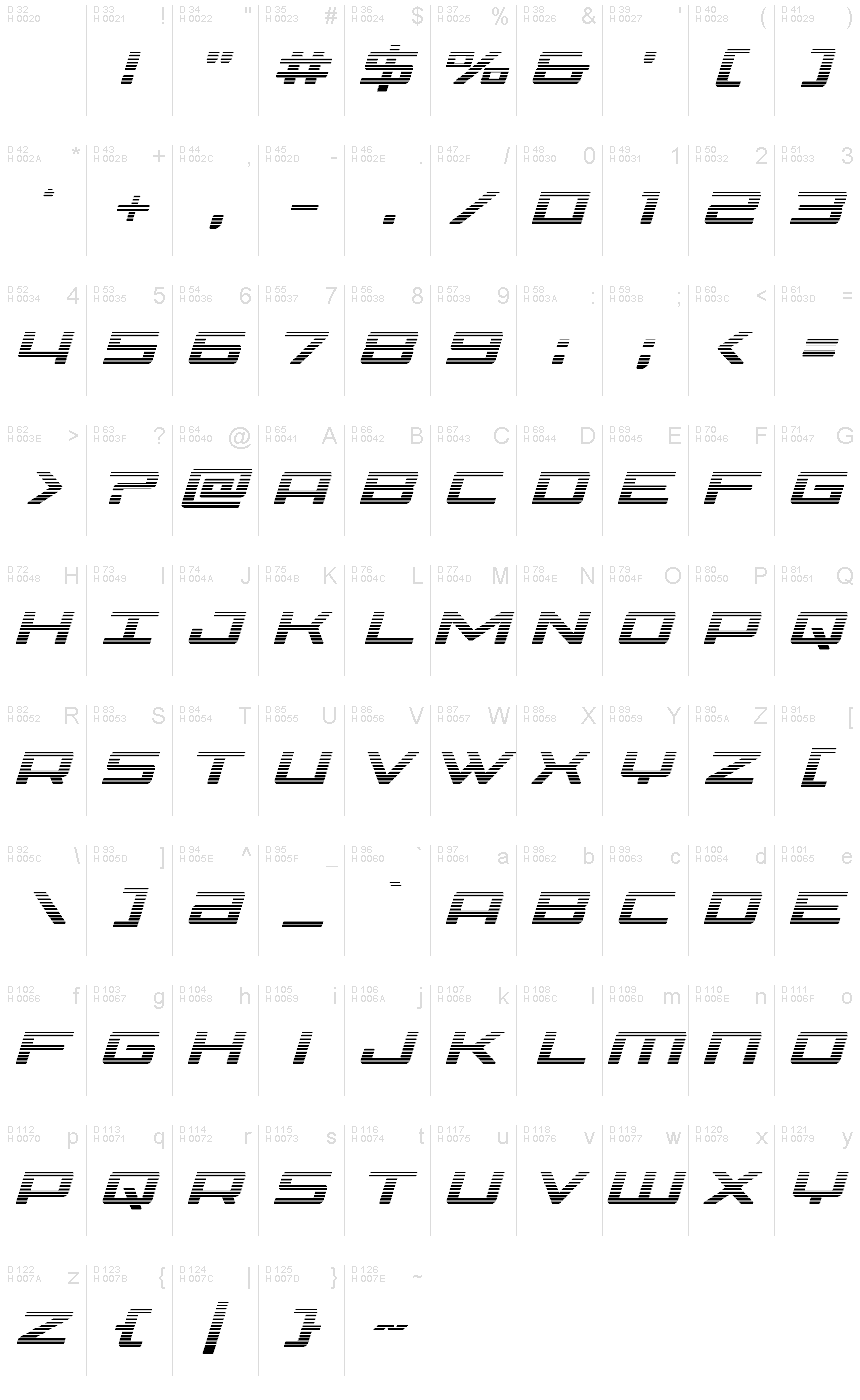
Phoenicia Gradient Italic is a bold, futuristic display font that exudes a strong techno aesthetic. Designed by Daniel Zadorozny, this expanded font family features a distinctive gradient effect that adds depth and vibrancy to its letterforms. The slanted italic styling further enhances the dynamic, energetic feel, making Phoenicia Gradient Italic an ideal choice for eye-catching headings, logos, and branding applications in the tech, gaming, and digital industries. Its striking visual impact and versatile style make it a compelling option for designers seeking to create impactful, attention-grabbing designs.
The font's expanded width provides excellent legibility at larger sizes, ensuring clarity and readability even in large-scale applications. Its techno-inspired aesthetic lends itself well to a variety of contemporary design contexts, from digital user interfaces and gaming interfaces to packaging, signage, and advertising materials.
Phoenicia Gradient Italic